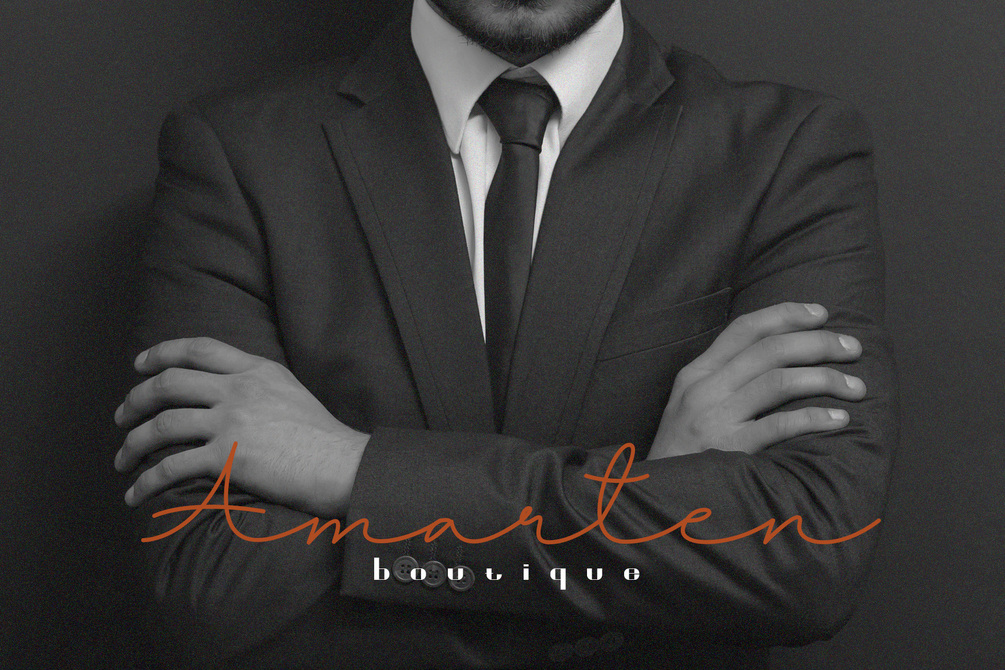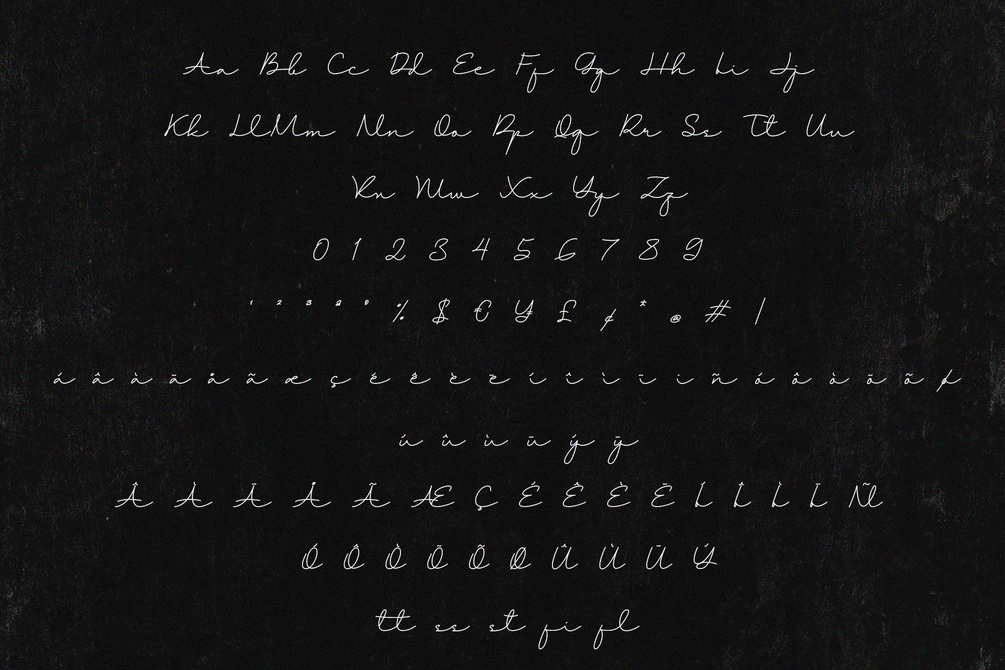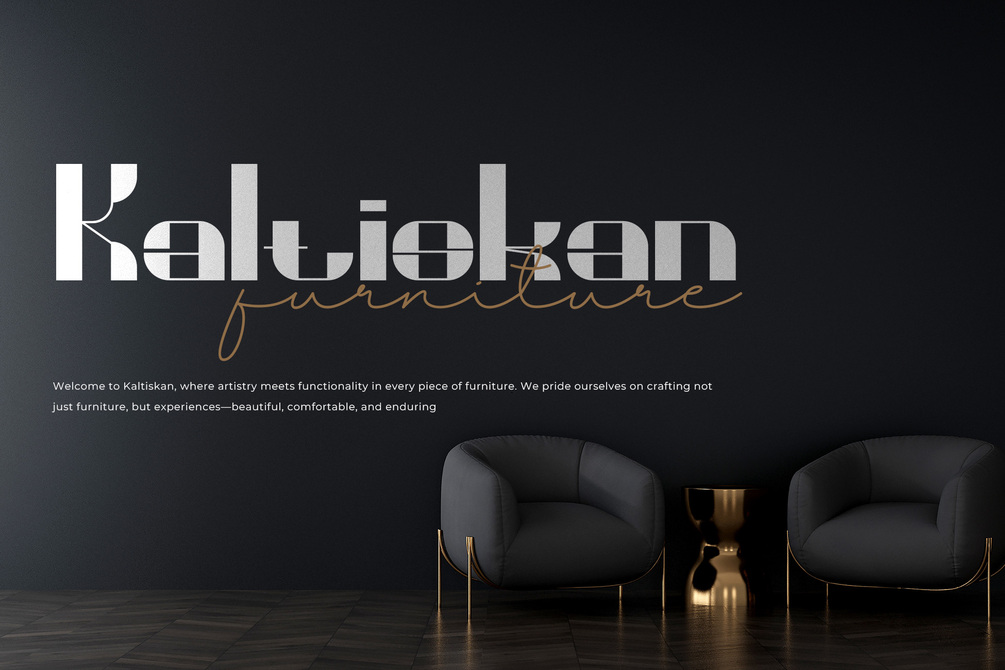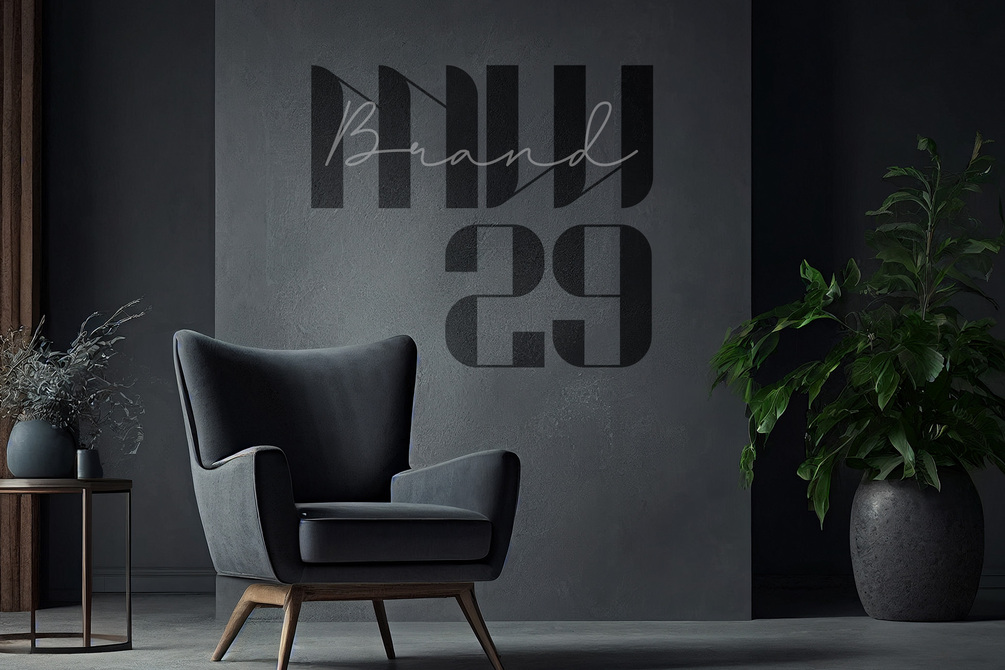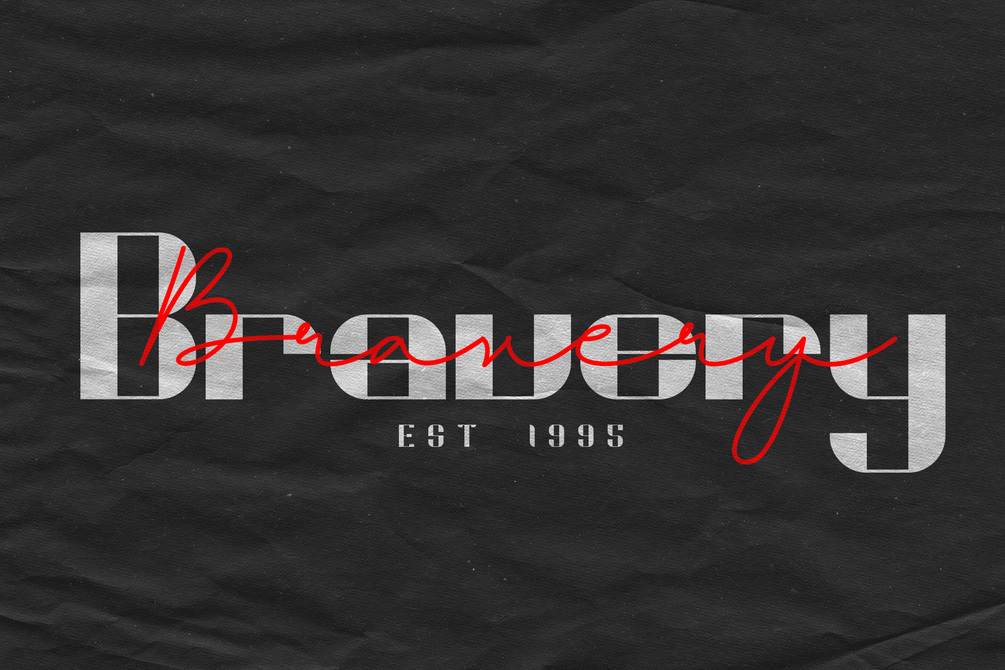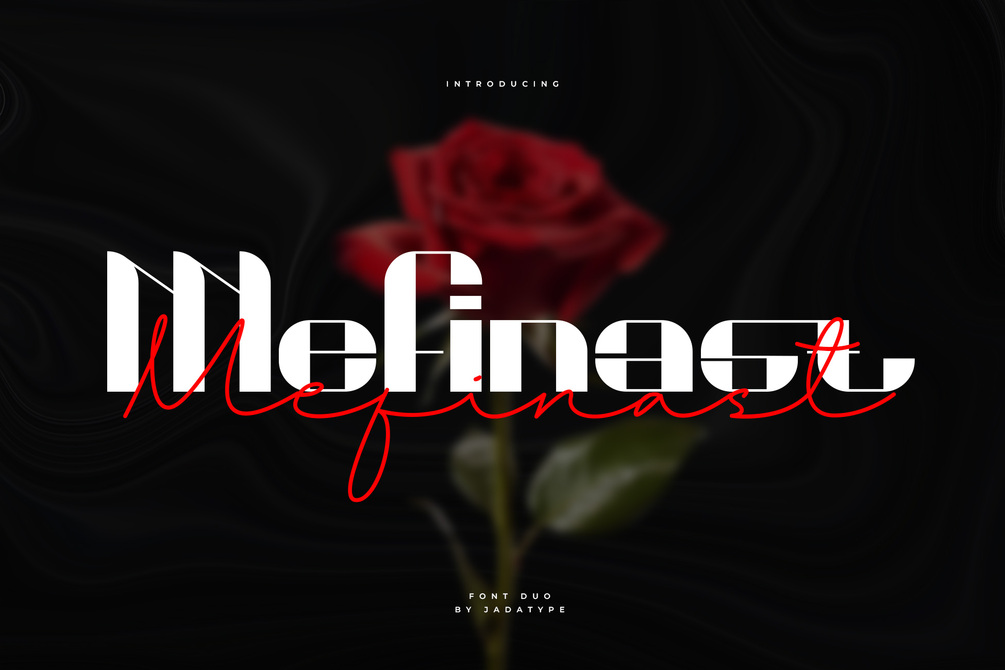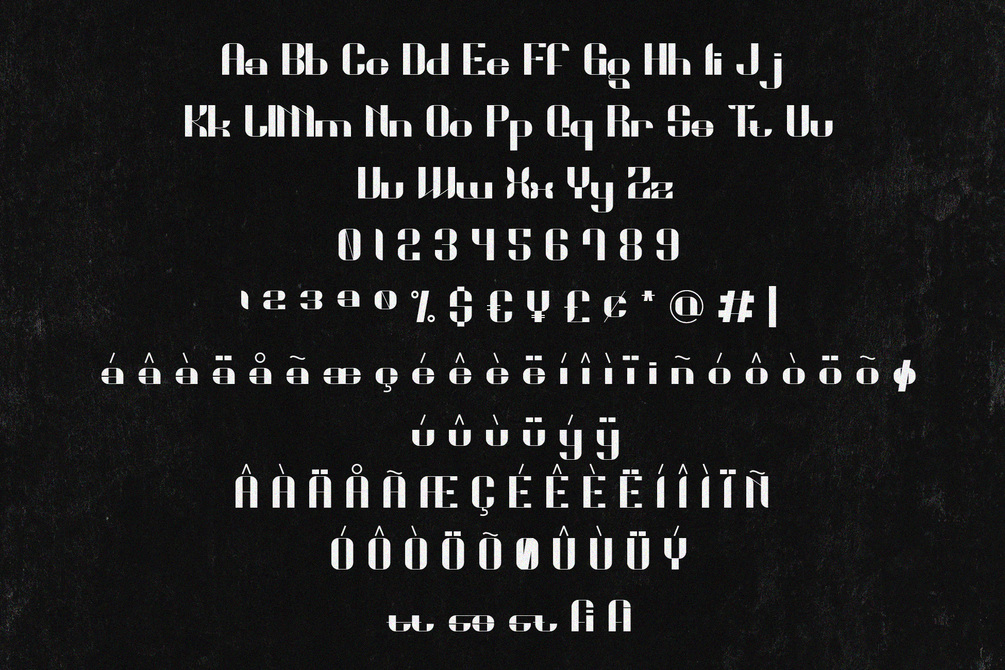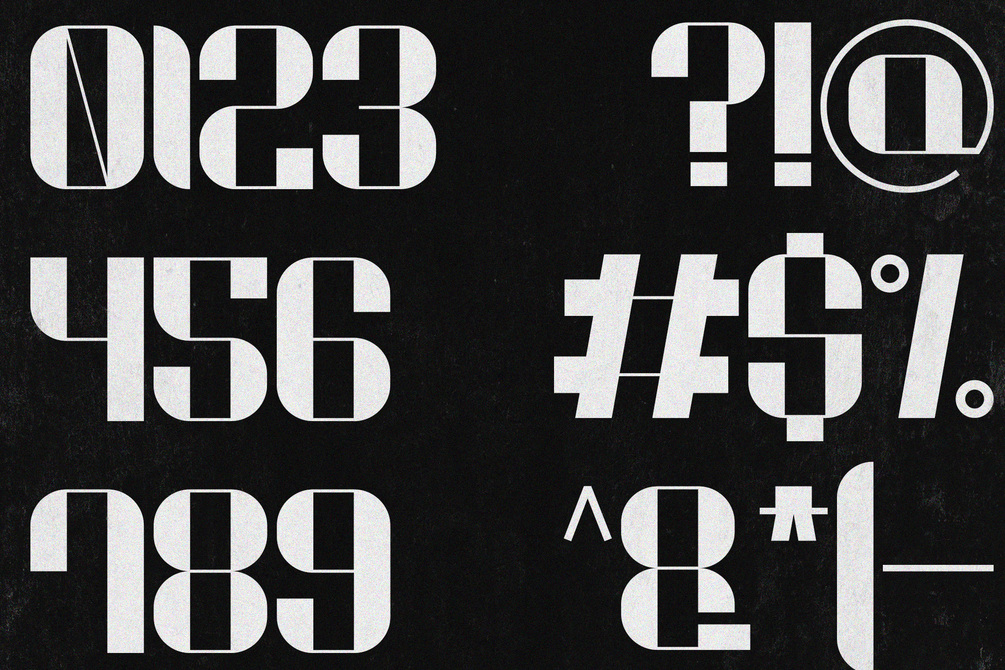
Mefinast Font Duo
Mefinast is Font Duo that comes with Sans Serif and Script style. Suitable for product, Branding, social media, logotype and so on. contains standard English letters, numbers, punctuation, and several accents that support multilingualism.